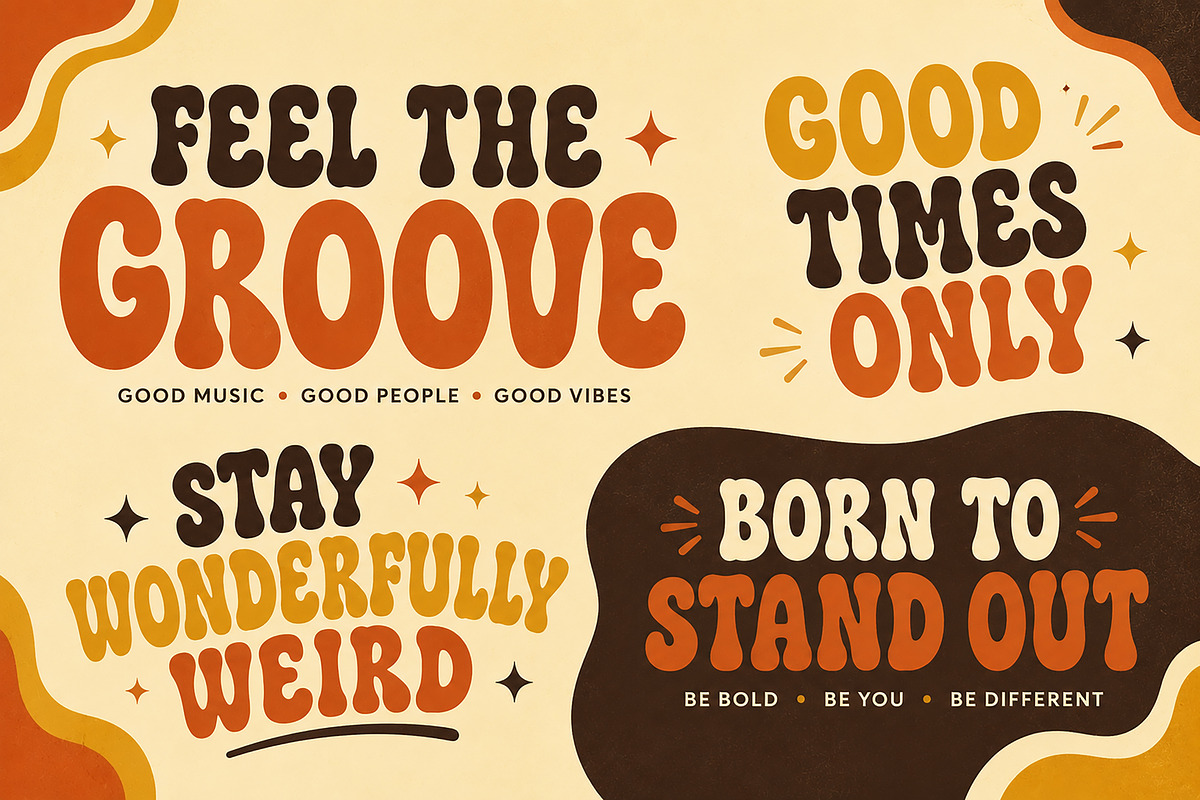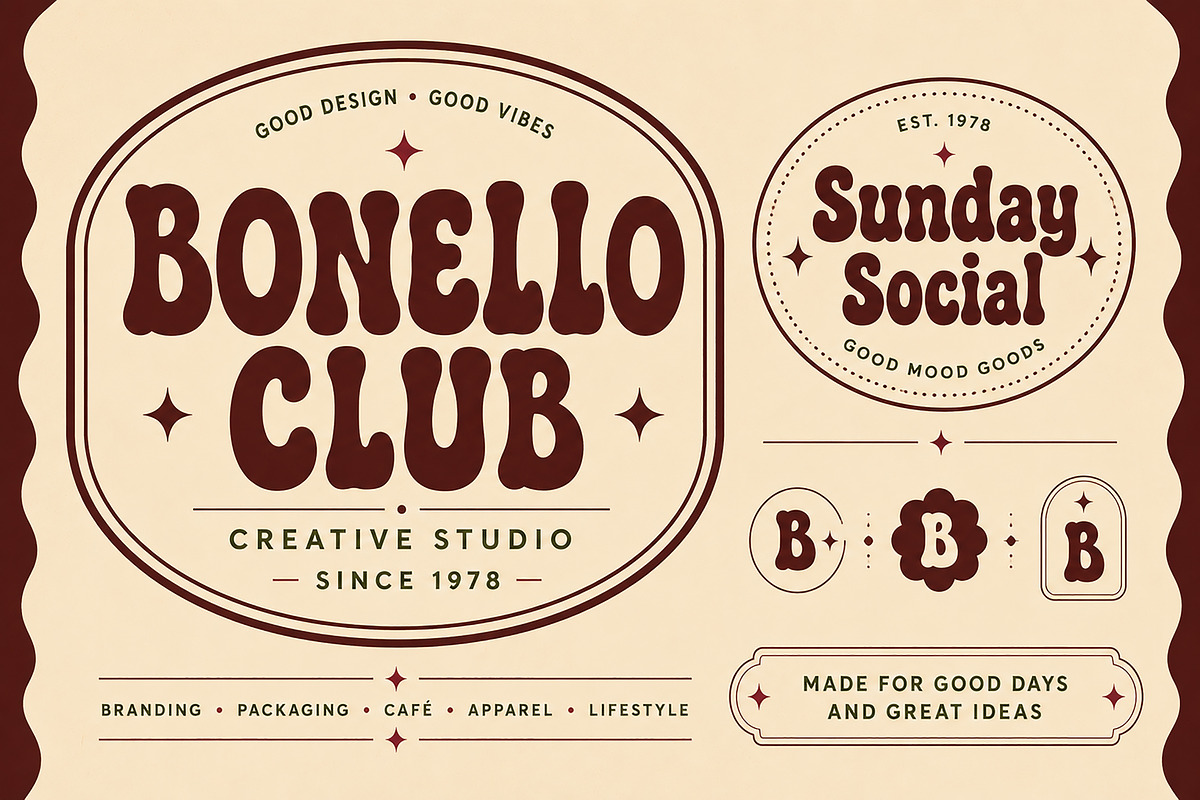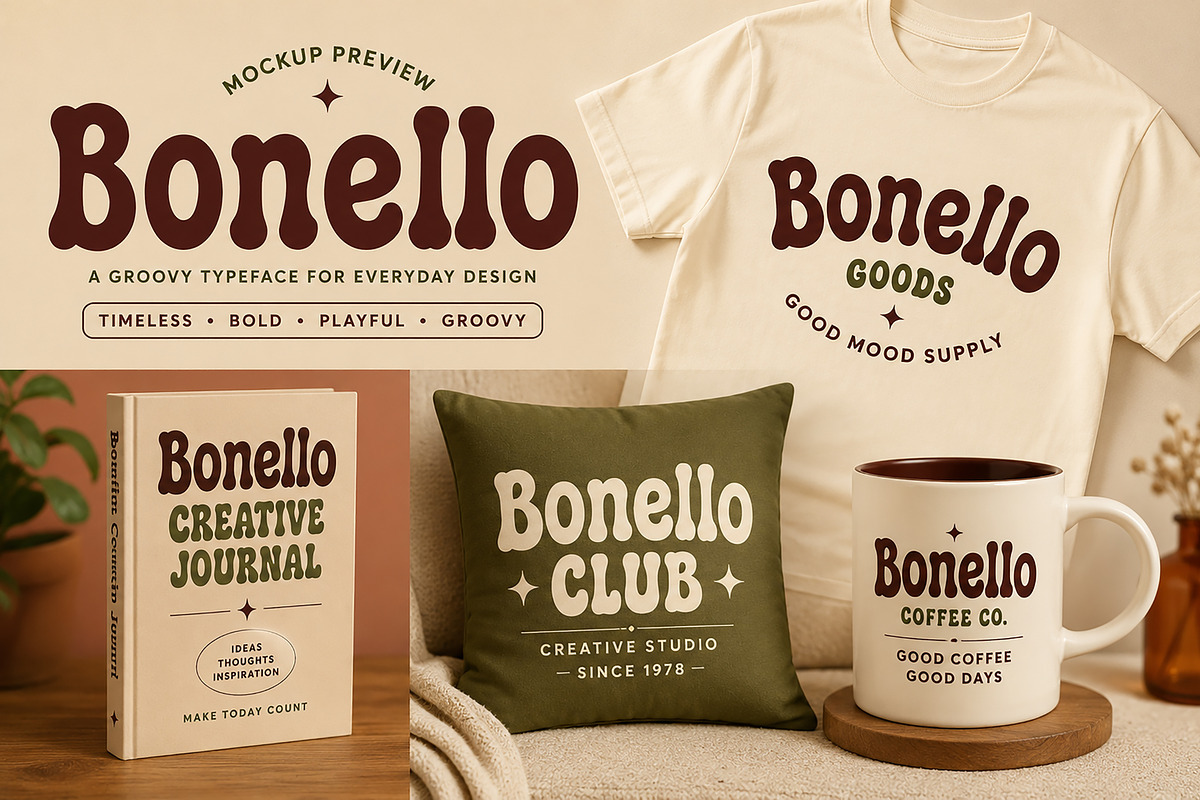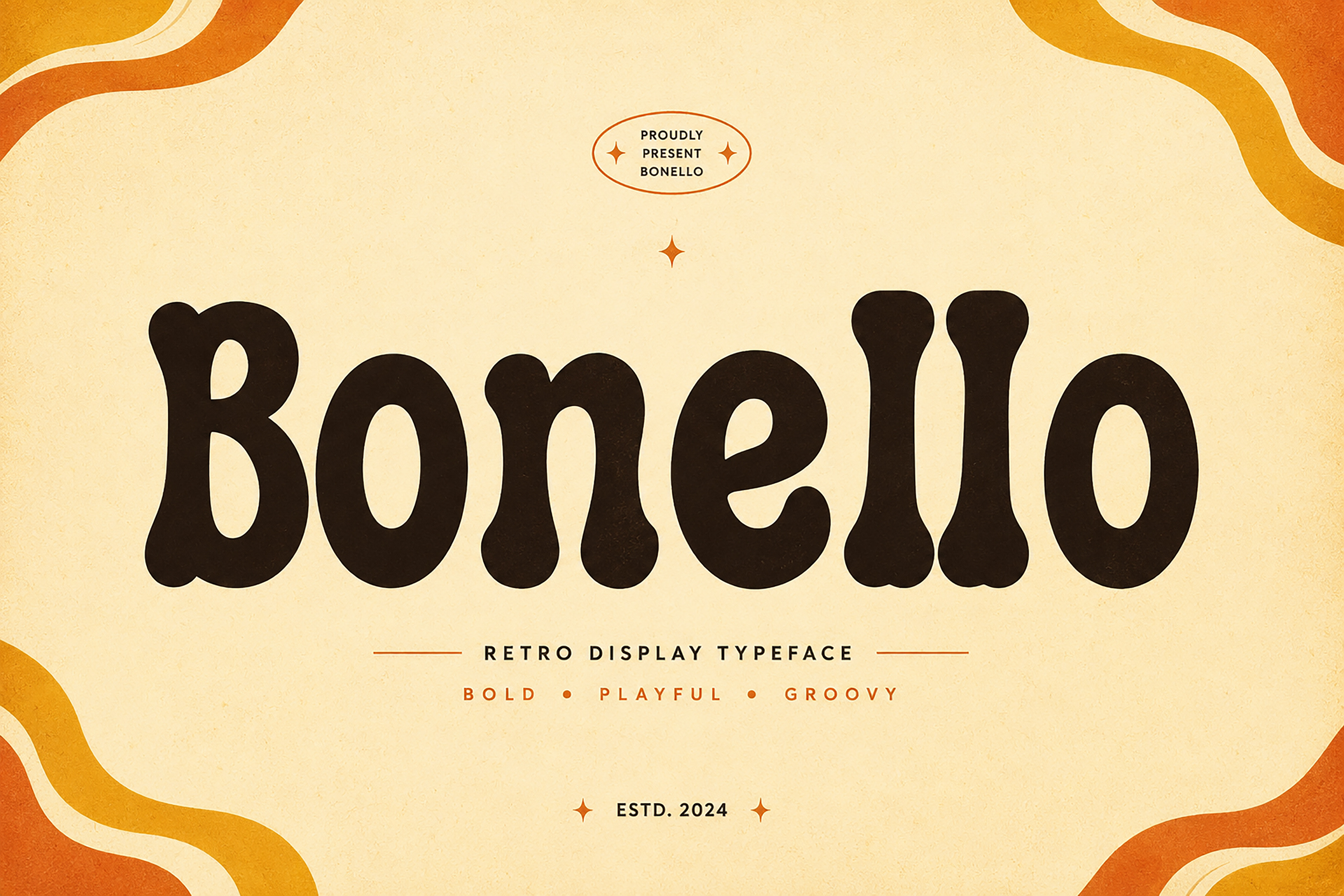
Bonello – Retro Groovy Display Font
Bonello is a bold and playful retro display font with smooth curves, chunky letterforms, and a distinctive groovy personality. Inspired by vintage 70s typography with a modern creative touch, Bonello is designed to make headlines and branding feel fun, expressive, and instantly memorable.
Its unique shapes and friendly visual character make Bonello a great choice for designers looking to create eye-catching typography without losing a polished, professional feel. From retro-inspired projects to modern lifestyle branding, this typeface brings a strong personality to every composition.
Bold Retro & Groovy Style
Perfect for Display and Branding Projects
Give your next project a bold vintage personality with Bonello — a groovy display font made for designs that deserve to stand out.